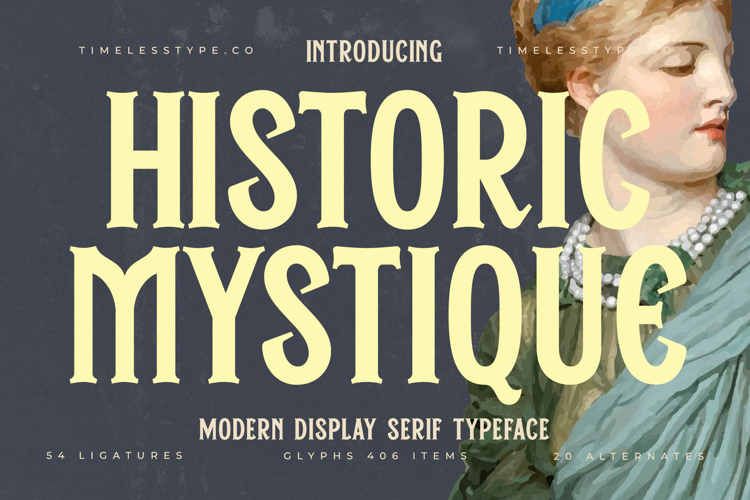
Historic Mystique - Modern Display Serif Typeface
Historic Mystique is a modern display serif typeface that blends vintage charm with contemporary sophistication. Its tall, bold letterforms, refined curves, and strong serifs create a powerful yet elegant presence, making it perfect for projects that require both authority and artistry. Designed with 54 ligatures, 20 alternates, and 406 glyphs, Historic Mystique provides extensive creative flexibility, allowing designers to build expressive and distinctive typography across a wide range of applications.
This font is ideal for headline typography, where its striking forms and bold proportions immediately capture attention on posters, banners, and editorial layouts. In branding and logo design, Historic Mystique communicates heritage and prestige, making it a strong choice for fashion houses, cultural institutions, artisanal products, and luxury brands that want to project timeless sophistication. Its commanding aesthetic also makes it perfect for packaging design, especially for wines, gourmet products, perfumes, and handcrafted goods where typography must reflect exclusivity and craftsmanship.
Historic Mystique excels in advertising campaigns, event posters, and promotional graphics, where its ligatures and alternates bring nuance and individuality to bold messaging. In editorial spreads, book covers, and certificates, the font enhances narratives with an elevated, classic feel.
With multilingual support, Historic Mystique adapts seamlessly to global projects, ensuring consistent style and impact across different markets.
Ultimately, Historic Mystique is more than a typeface—it is a visual bridge between history and modernity. Whether used in branding, packaging, editorials, or digital platforms, it ensures every project radiates elegance, authority, and timeless allure.